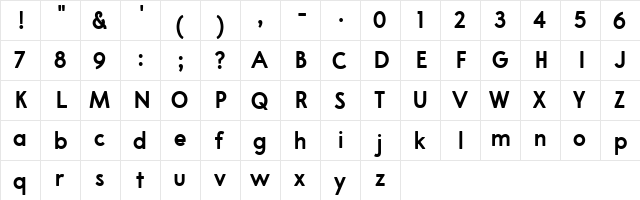
A Pompadour Bold Sample Regular
| Foundry | Ana Parracho |
| Designer | Ana Parracho |
Design Context for A Pompadour Bold Sample Typeface
A Pompadour Bold Sample takes a measured approach to typography — its balanced proportions and neutral character make it a reliable workhorse for both digital and print work. Its bold stroke weight gives it real presence on the page.
Pro Tip: Use A Pompadour Bold Sample in both headline and body roles to test its range before committing to a single application.